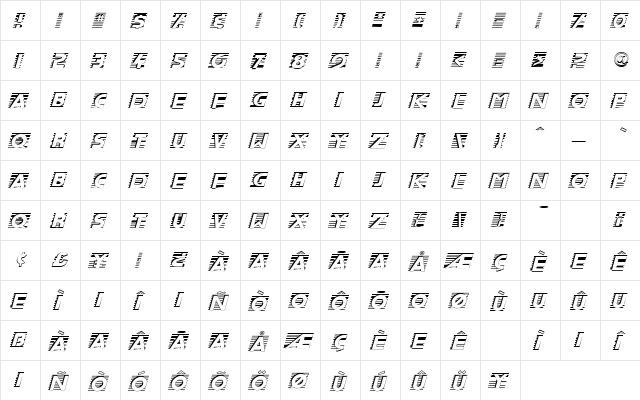
ScanLine Regular
Design Context for ScanLine Typeface
ScanLine is a composed and adaptable typeface that performs quietly and consistently across a wide range of design contexts.